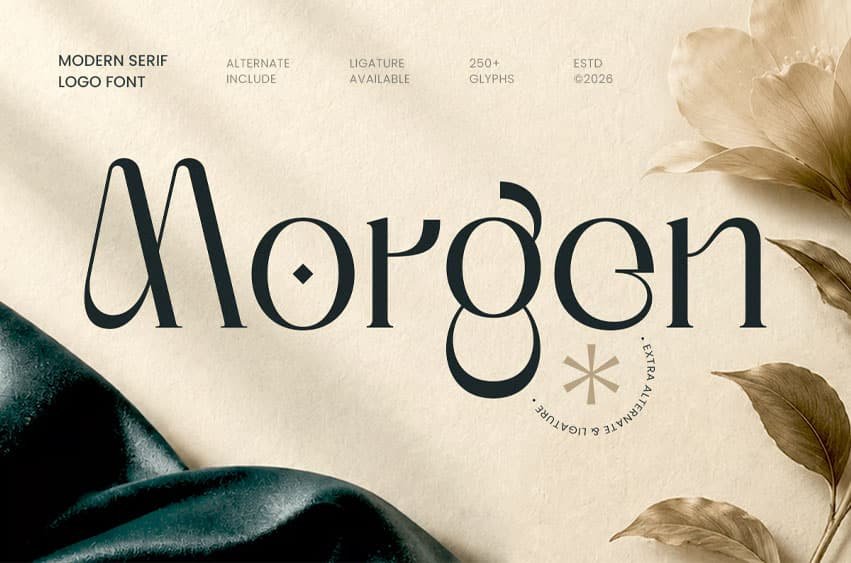
Morgen Font is a Modern Serif Logo Font that combines elegance, sophistication, and contemporary style. It brings a refined and luxurious appearance with beautifully crafted serif details, making it the perfect choice for creating timeless and professional designs.
Morgen is perfect for all your favorite projects, including logos, branding, fashion designs, editorial layouts, magazines, invitations, packaging, advertisements, business cards, social media posts, and more. Add it to your creative projects and enjoy the elegant results!